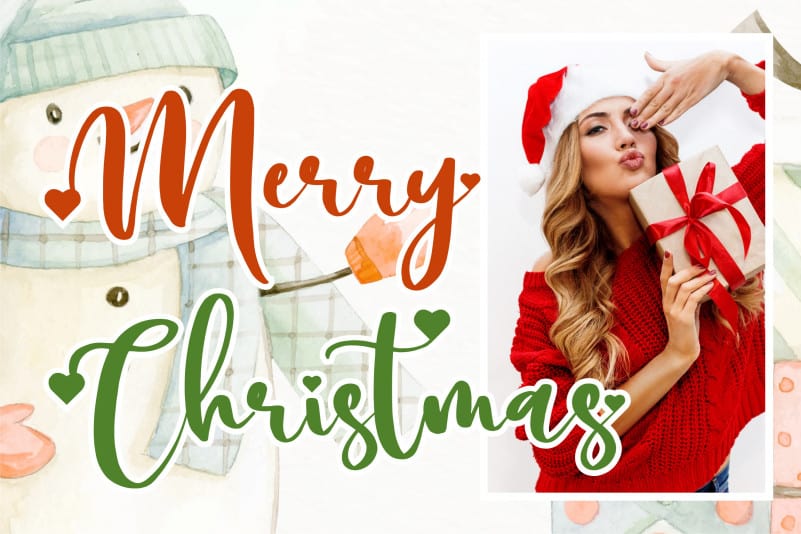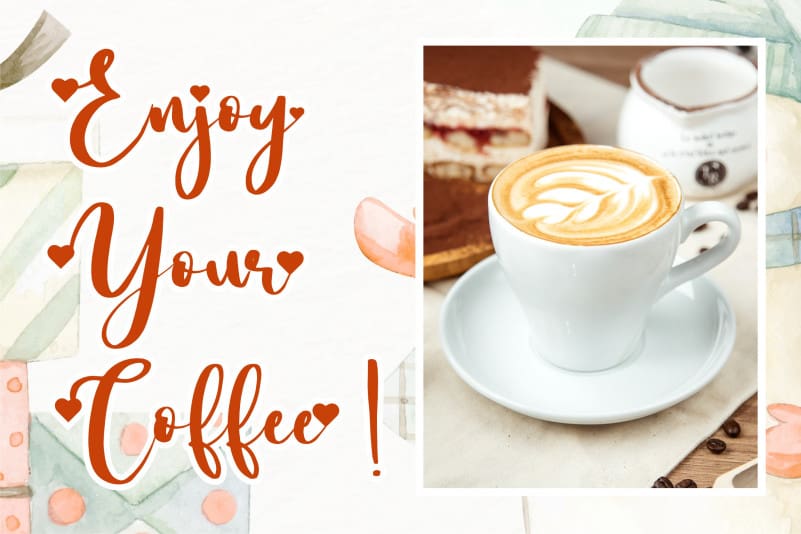
Sweet Glory Script Font
Sweet Glory Script Font is a beautiful, fresh, rich, and elegant handwritten font. It is ideal for holiday-themed greeting cards and for any crafting project that requires a romantic touch. This font is PUA encoded which means you can access all of the glyphs and swashes with ease!